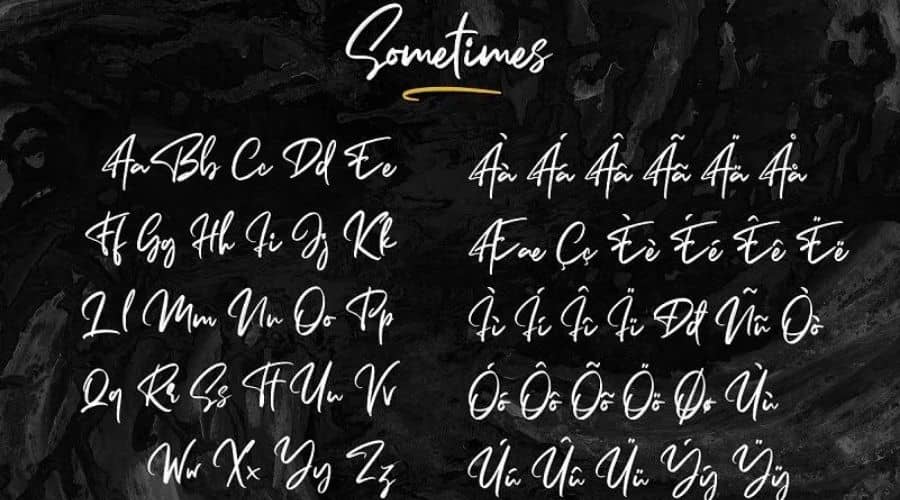
Sometimes Fancy Signature Font
Good day, everyone! “Sometimes” is a fancy signature font that comes in two styles: regular and slant. This typeface is inspired by luxury and branded items, making it look nice and great in a variety of ways for your latest project. You don’t have to draw a signature by hand using mockofun; instead, signature fonts are used to generate a unique signature. The font is designed and shared by the studio9.
It’s elegant and precise, and it’d be ideal as a logo typeface for fine art and high-end photographers. The FontFont comes in OTF and TTF file types. You can quickly access all of the wonderful glyphs and ligatures because the FontFont is PUA encoded! The standard characters allowed are uppercase, numerals, and punctuation. This sentence contains no lowercase or alternative characters.
Fancy signature fonts are becoming increasingly popular in personal logo designs and headlines on social media posts. It distinguishes the post/logo from the crowd while also adding a personal touch to your design. Sometimes Fancy Signature Font is exactly what you’re looking for, with its elegant elegance making it the perfect Font for you!
Sometimes Fancy Signature Font is ideal for logos and branding, photos, invitations, watermarks, advertisements, manufacturing methods, correspondence, bridal designs, labels, product packaging, special events, and anything else that requires a touch of handwriting.
The Font looks good on any watch company. It offers advertisements or billboards for watch brands an attractive and polished look. Sometimes Fancy Signature Font is the Font of choice for weddings, branding, invitations, advertising, and much more! This Font adds a touch of class to any design.
Sometimes Fancy Signature Font View